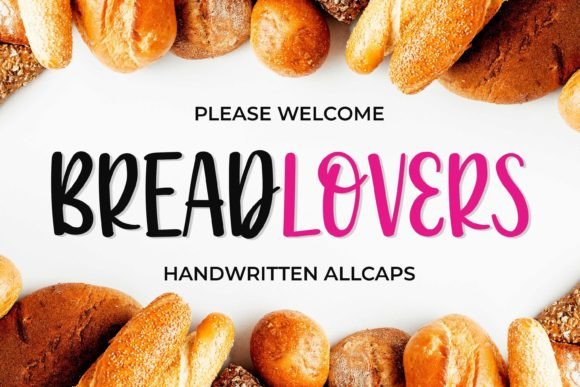
Breadlovers Font: The Perfect Handwritten All-Caps Font for Crafting and DIY Projects
Are you a designer, crafter, or DIY enthusiast looking for a unique and quirky font to add a personal touch to your projects? Look no further than Breadlovers Font! This handwritten all-caps font is perfect for a variety of design projects, from poster design and print ads to digital ads, headlines, t-shirts, and crafts.
What Makes Breadlovers Font Special?
Breadlovers Font stands out from other fonts due to its natural feel and quirky style. The font has a handmade quality that gives it a charming and approachable vibe, making it perfect for projects that require a personal touch. The all-caps design ensures that your text stands out, while the irregularities in the lettering add a touch of whimsy and character.
Perfect for Crafting and DIY Projects
Crafting and DIY projects often require a font that is friendly, approachable, and visually appealing. Breadlovers Font fits the bill perfectly. Its handwritten style and all-caps design make it ideal for projects such as:
- Poster design: Create eye-catching posters for your craft fairs, events, or promotions with Breadlovers Font.
- Print ads: Use the font to create engaging print ads that stand out from the crowd.
- Digital ads: Add a personal touch to your digital ads with Breadlovers Font.
- Headlines: Use the font to create bold and attention-grabbing headlines for your blog posts, articles, or social media posts.
- T-shirts: Design custom t-shirts with Breadlovers Font for a unique and quirky look.
- Crafts: Use the font to add a personal touch to your craft projects, such as handmade cards, gift tags, or scrapbooking.
Why Choose Breadlovers Font?
There are many fonts available online, but Breadlovers Font offers several unique benefits that make it a top choice for designers and crafters:
- Unique style: Breadlovers Font has a distinctive handwritten style that sets it apart from other fonts.
- All-caps design: The font’s all-caps design ensures that your text stands out and grabs attention.
- Natural feel: The font’s irregularities and imperfections give it a natural, handmade feel that is perfect for crafting and DIY projects.
- Easy to read: Despite its quirky style, Breadlovers Font is easy to read, making it perfect for body text and headlines.
How to Use Breadlovers Font
- Experiment with font sizes: Breadlovers Font looks great in a variety of font sizes, from large headlines to smaller body text.
- Pair with other fonts: Try pairing Breadlovers Font with other fonts to create a unique and visually appealing design.
- Use in combination with images: Breadlovers Font looks great in combination with images, especially those with a natural or handmade feel.